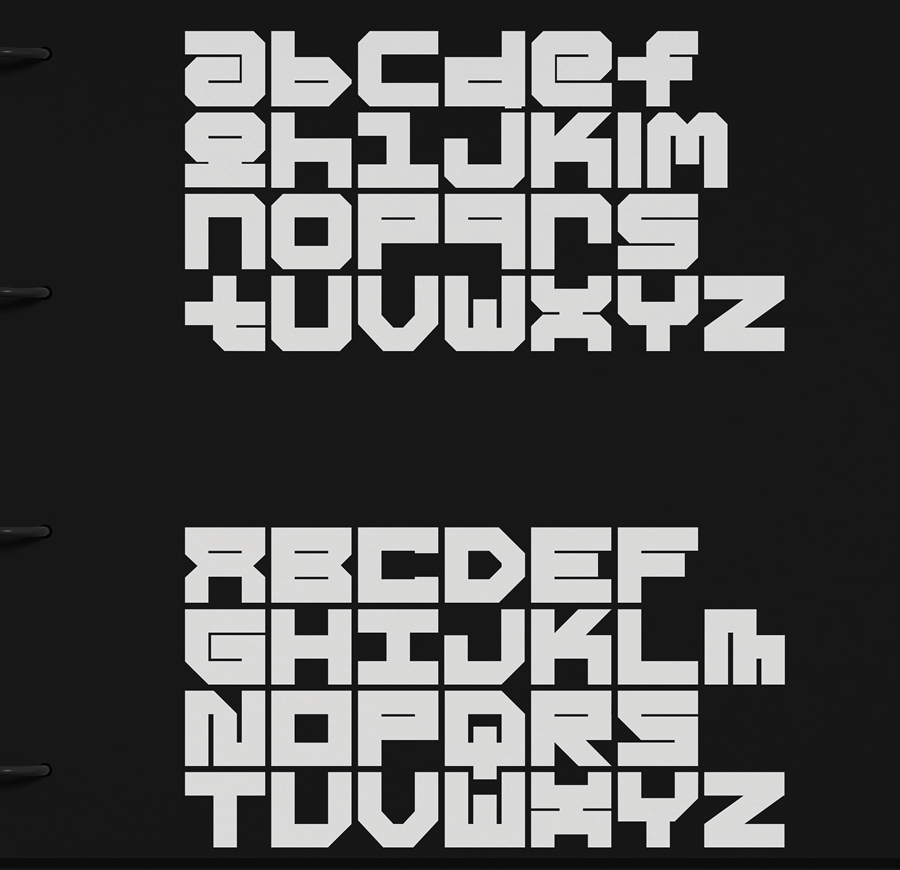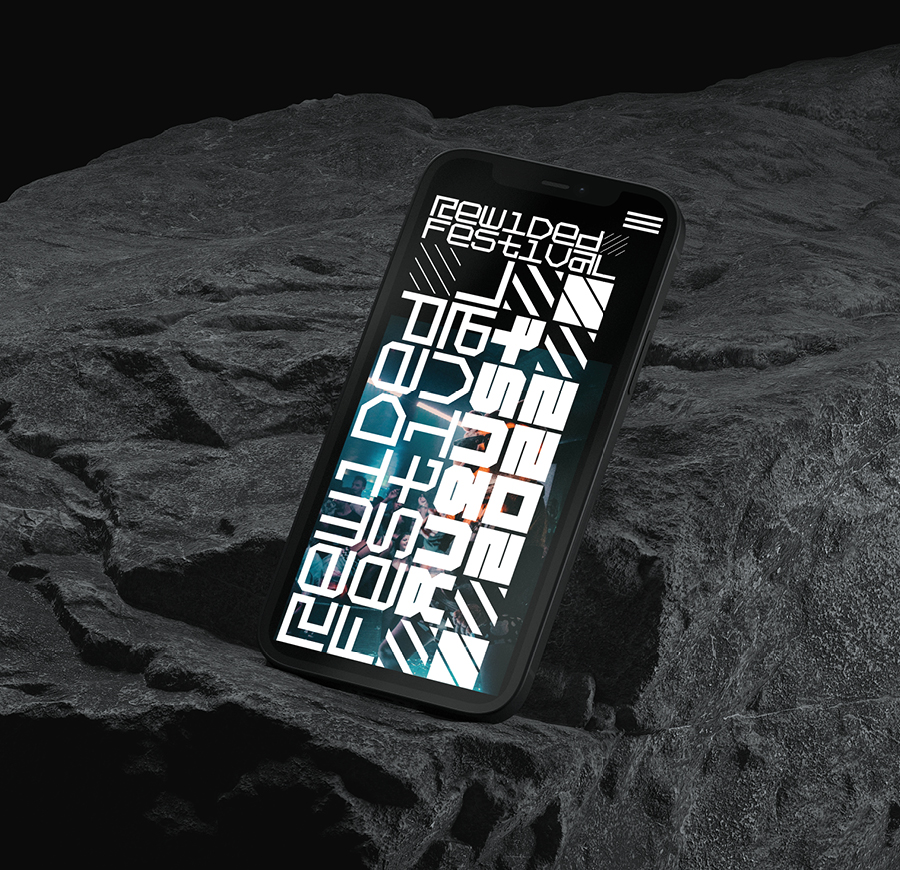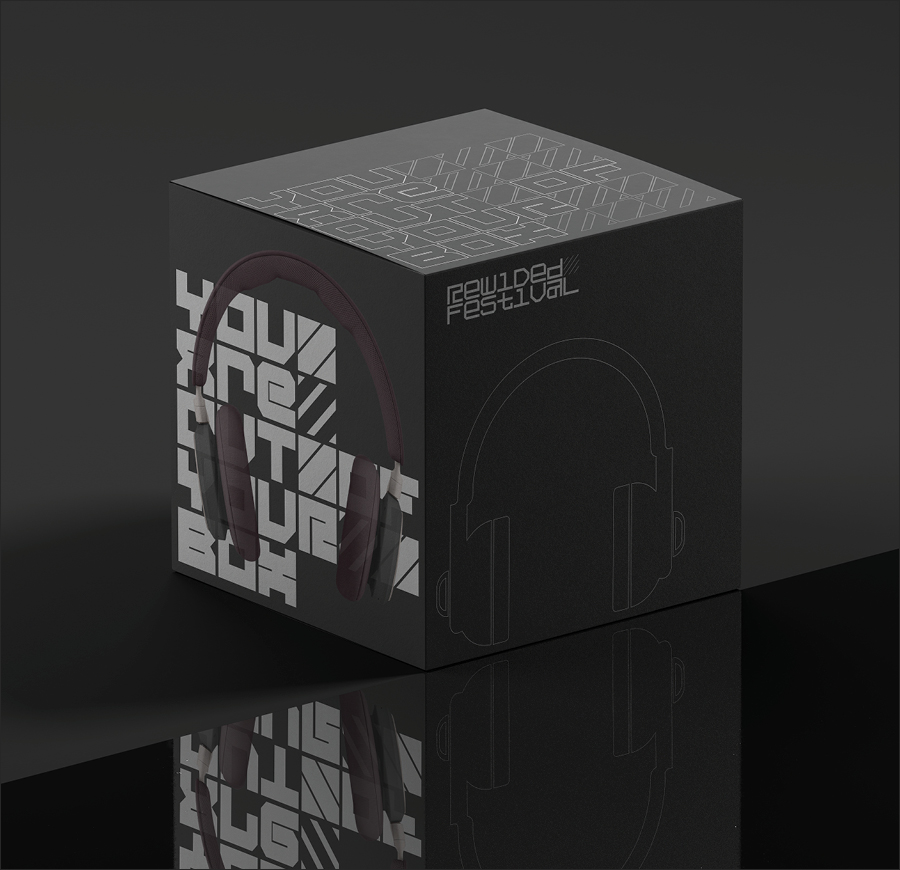
Sf Bix Metric
Bix Metric is a modern, one-of-a-kind font that will make your designs stand out against the competition. With 3 styles and 80 languages supported, this stylistic display type has what you need for all sorts of projects!